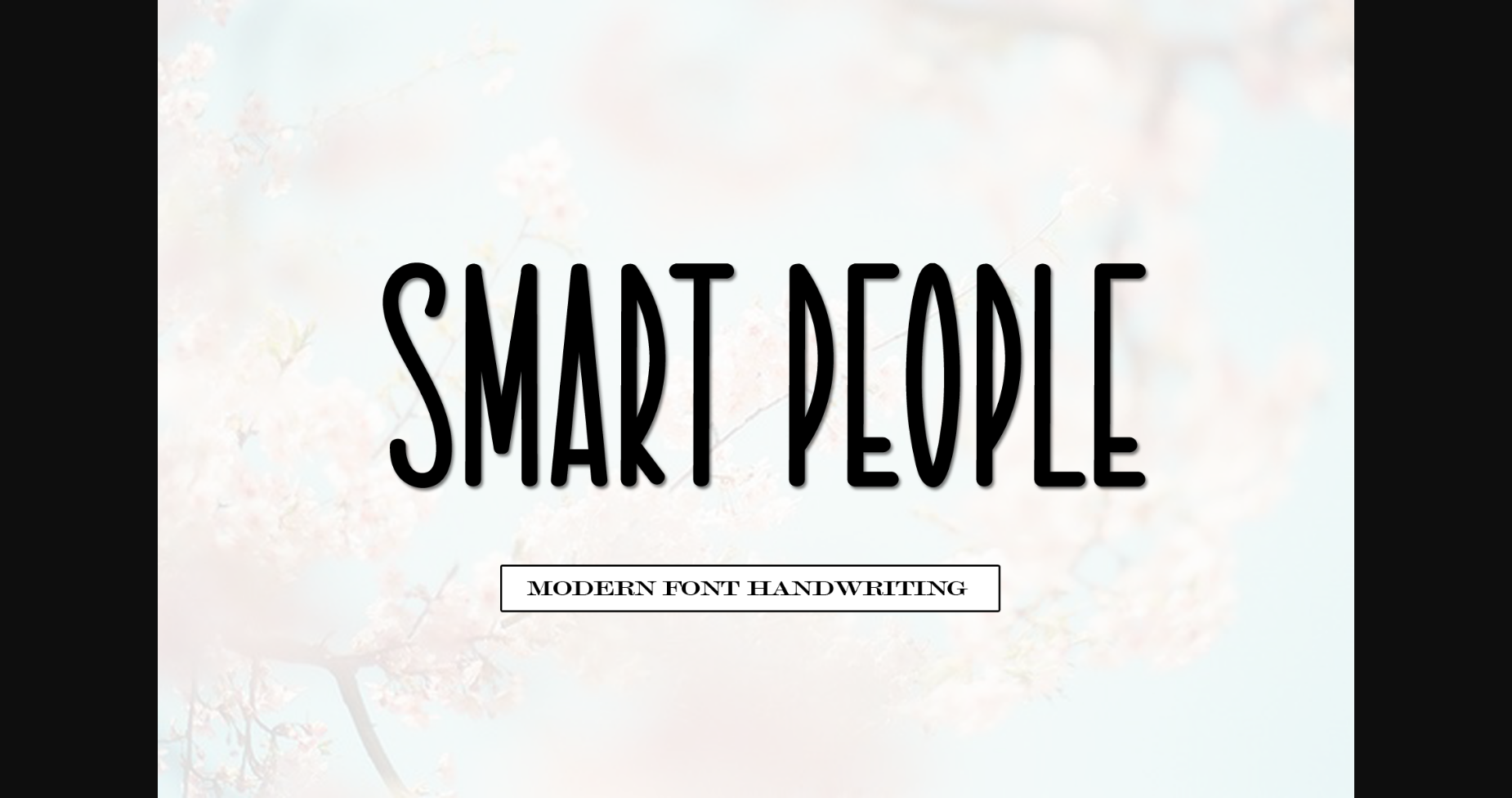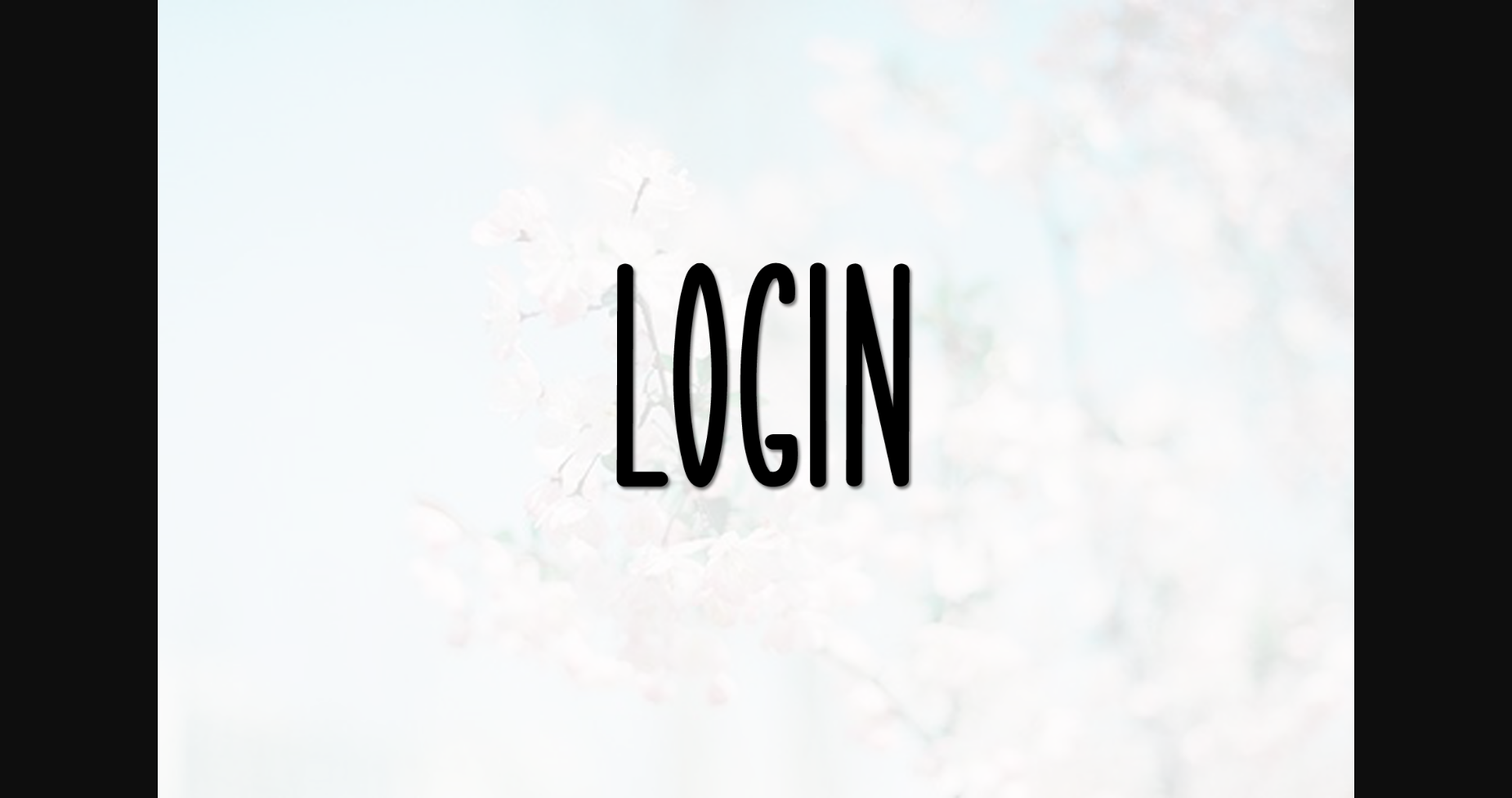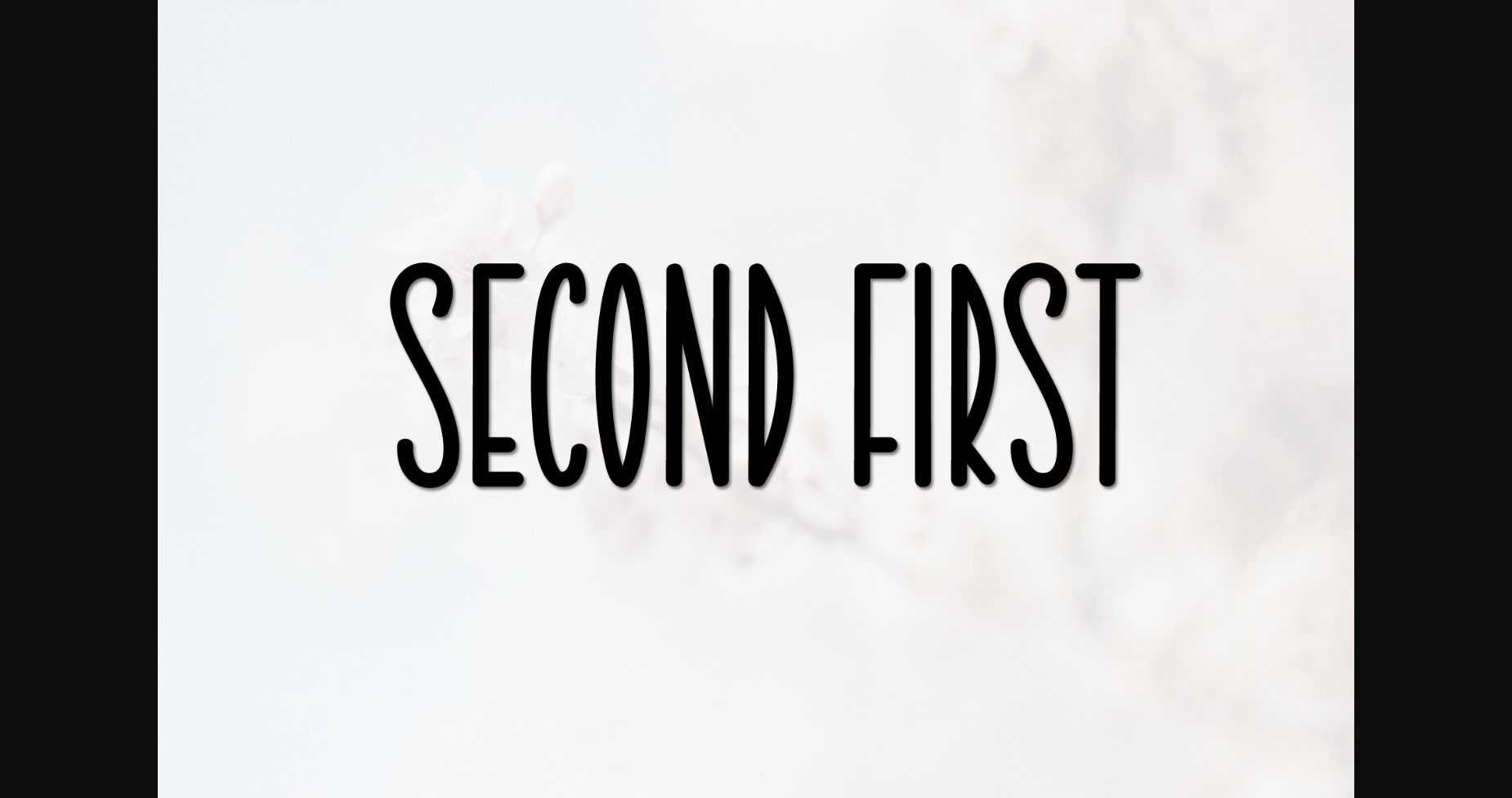
About Smart People Font
Smart People is a stylish and elegant handwritten sans serif font. It will look great on wedding invitations, thank you cards, quotes, greeting cards, logos, business cards, and any other design that calls for a handwritten touch.